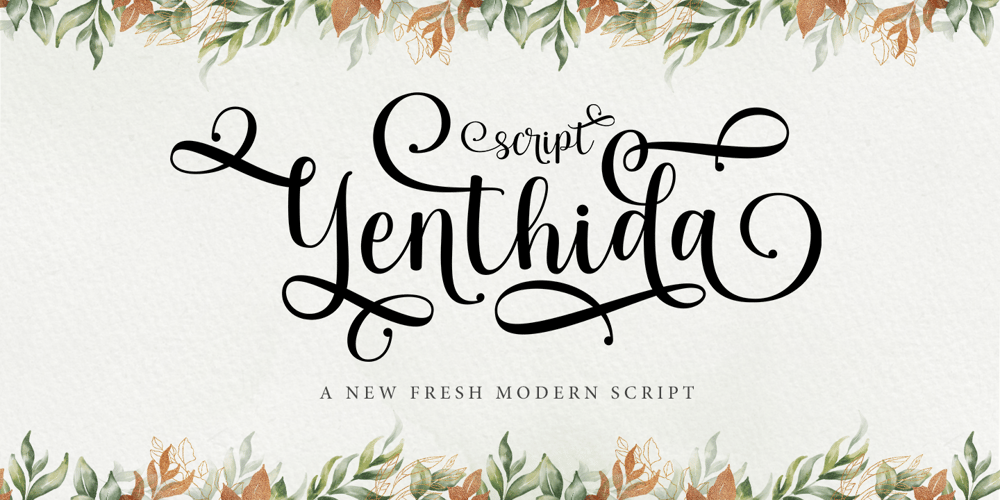
Yenthida Font Family was designed by Rizki Agam Fonna and published by RCKY Studio. Yenthida contains 1 styles and family package options. Yenthida Script is a modern calligraphy design, including Regular. This font is casual and beautiful with strokes. Can be used for various purposes. such as logos, product packaging, wedding invitations, branding, headlines, signage, labels, signatures, book covers, posters, quotes, and more.Yenthida Script includes changes in OpenType stylistics, binding, and international support for most Western languages.